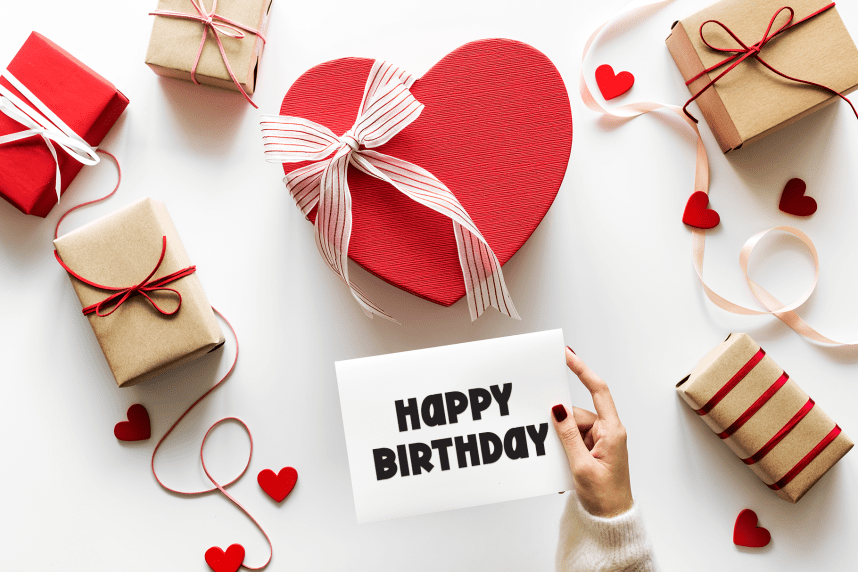
Foryou Forever – Cheerful Font is a sweet and friendly handwritten display font. Cute and fun, this font is ideal for writing wedding invitations, cards, or any other design that might need a playful touch!